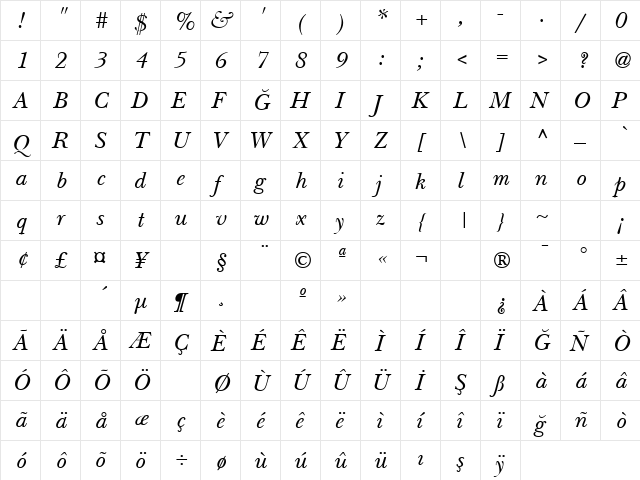
Baez Italic
Design Context for Baez Typeface
Baez is a composed and adaptable typeface that performs quietly and consistently across a wide range of design contexts. Its italic angle brings a sense of urgency and motion to the letterforms.
Pro Tip: Try Baez for annotation and caption copy alongside an upright companion — the contrast in angle creates a dynamic but ordered typographic system.